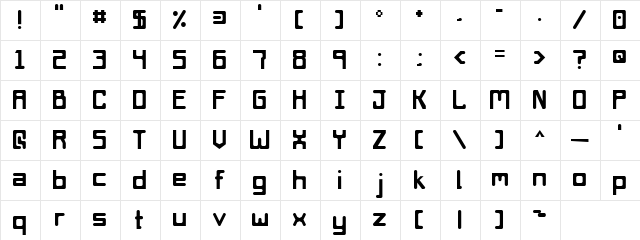
Das Space Fiend Regular
Design Context for Das Space Fiend Typeface
Das Space Fiend offers clean, dependable letterforms without strong stylistic allegiance, making it a practical choice for designers who need flexibility.
Pro Tip: Use Das Space Fiend in both headline and body roles to test its range before committing to a single application.